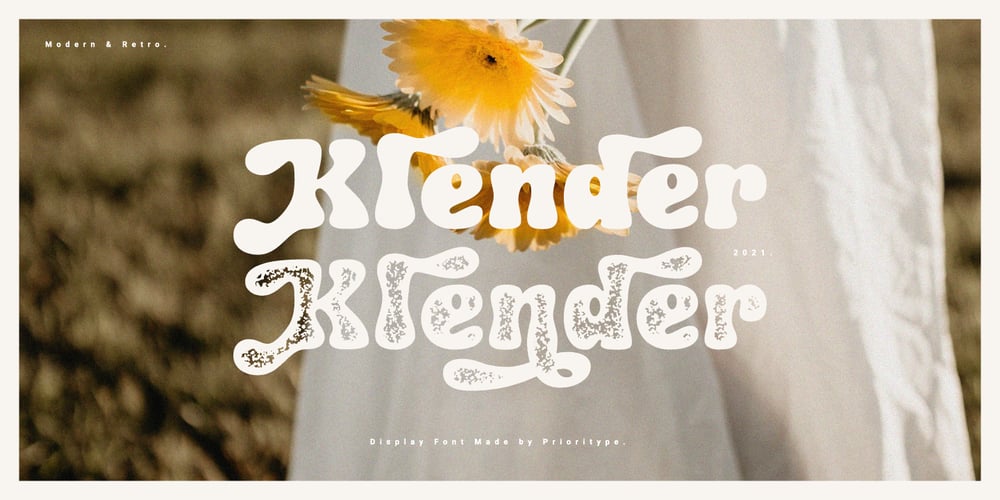
Klender
Klender font
Klender Font Family was designed by Prio Nurokhim Aji and published by Prioritype. Klender contains 2 styles and family package options. Introducing.Klender: The modern and retro styled fonts have some additional alternative characters that make them beautiful. With these 2 styles you can apply them to your branding designs, business cards, posters, social media posts, merchandise and more.Features: Uppercase, Lowercase, Numeral, Punctuation, Multilingual, Alternates & PUA Encoded.Obtained file format: Otf & Ttf.Thanks 🙂